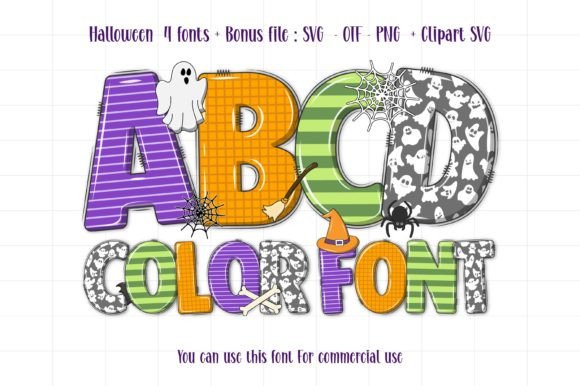
Halloween Set Font: Add a Touch of Spooky Whimsy to Your Creations
As the spookiest time of the year approaches, get ready to cast a spell of creativity on your projects with the Halloween Set Font. This adorably playful font is steeped in delightful Halloween-inspired details and colors, making it the perfect addition to your festive creations. But what makes this font truly special is its versatility – it can effortlessly blend charm and spook factor, making it an ideal choice not only for Halloween-themed projects but also for horror or cutely styled creations.
Key Features of Halloween Set Font
- Playful and Whimsical Design: The Halloween Set Font boasts an adorably playful design that is sure to add a touch of whimsy to your projects.
- Halloween-Inspired Details and Colors: The font is steeped in delightful Halloween-inspired details and colors, making it perfect for festive creations.
Unleash Your Creativity with Halloween Set Font
The Halloween Set Font is more than just a font – it’s a creative tool that can help you bring your ideas to life. With its captivating allure, this font can add a touch of magic to your projects, making them captivate and shine. Whether you’re creating Halloween-themed decorations, horror-inspired artwork, or cute and playful designs, this font is sure to be a perfect fit.
Tips and Tricks for Using Halloween Set Font
To get the most out of the Halloween Set Font, here are some tips and tricks:
- Experiment with Different Colors: Try out different colors and combinations to create unique and eye-catching designs.
- Mix and Match with Other Fonts: Combine the Halloween Set Font with other fonts to create interesting and dynamic text effects.
- Use it for Various Projects: Don’t limit yourself to just Halloween-themed projects – use the font for horror, cute, or playful designs as well.
In conclusion, the Halloween Set Font is a versatile and creative tool that can add a touch of spooky whimsy to your projects. With its playful and whimsical design, Halloween-inspired details and colors, and compatibility with various design programs, this font is perfect for festive Halloween creations, horror-inspired artwork, or cute and playful designs. So why wait? Get creative with the Halloween Set Font and watch as it brings life to your ideas!